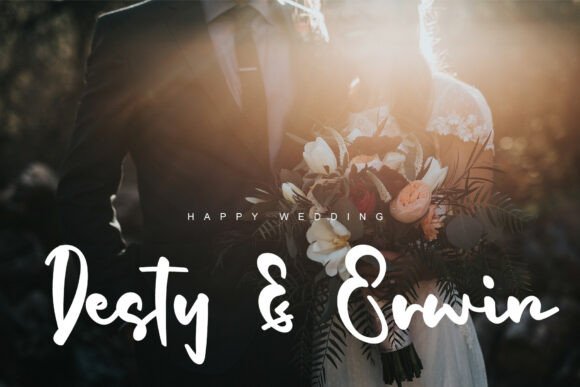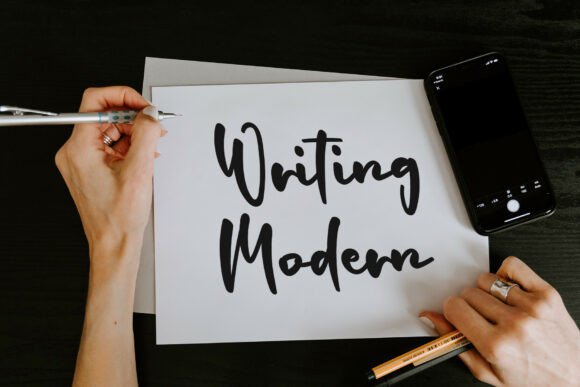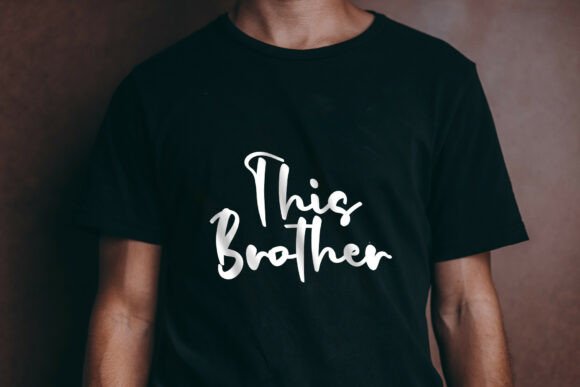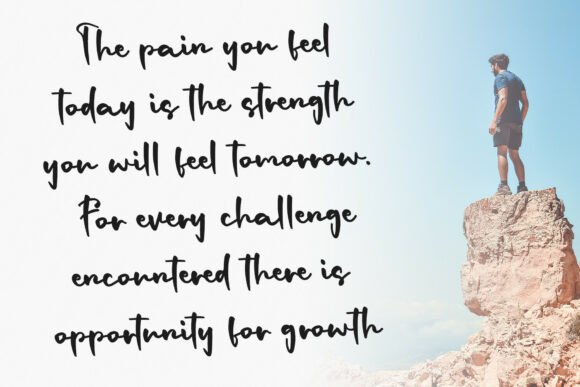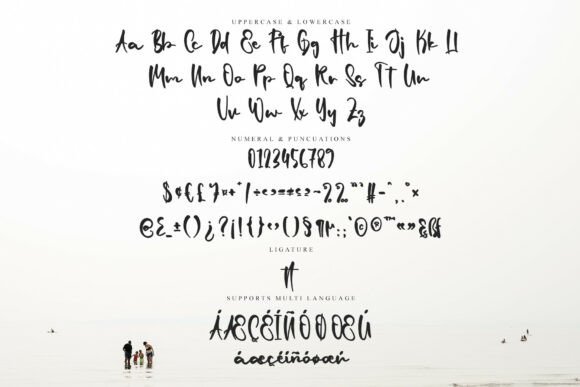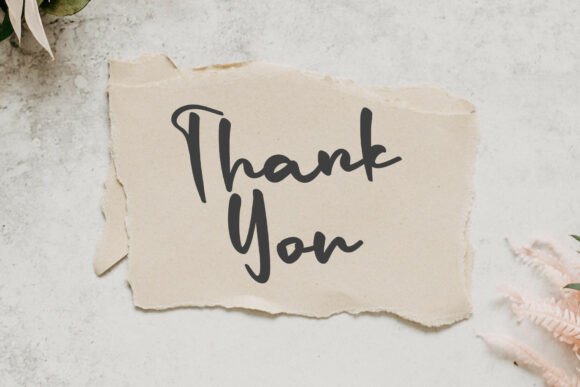
Introducing Cranky Handwritten Font: Elevate Your Designs with Elegance and Sophistication
In the world of typography, a well-crafted font can make all the difference in creating a lasting impression. For designers and crafters seeking to add a touch of class and sophistication to their work, Cranky Handwritten Font is an exceptional choice. This beautiful font seamlessly blends the fluidity of script handwriting with a bold, timeless vintage aesthetic, making it perfect for a wide range of design applications.
The Beauty of Cranky Handwritten Font
Cranky Handwritten Font is a masterful creation that exudes elegance and refinement. Its fluid strokes and graceful curves bring a sense of dynamism and movement to any design, while its bold and vintage touch adds a layer of sophistication and timelessness. This font is meticulously crafted to deliver a unique and distinctive look that sets it apart from more generic fonts.
Key Features of Cranky Handwritten Font
- Fluid Strokes: The font features smooth, flowing strokes that give it a natural, handwritten feel.
- Graceful Curves: Elegant curves and subtle nuances add depth and character to the font.
- Dynamic Flow: The font’s design ensures a natural flow, making it easy to read and visually appealing.
- Bold and Timeless Vintage Touch: A classic, vintage aesthetic that adds a touch of nostalgia and sophistication.
Cranky Handwritten Font is incredibly versatile and can be used in a variety of design contexts, including:
- Branding Design: Create a lasting impression with a unique and memorable brand identity.
- Signature Design: Add a touch of elegance and sophistication to your signature or personal brand.
- Vintage Aesthetics: Achieve a nostalgic, retro look that’s perfect for packaging, advertising, or editorial design.
- Stationery and Invitations: Elevate your stationery, invitations, or greeting cards with a touch of class and refinement.
Why Choose Cranky Handwritten Font?
With so many fonts available, why choose Cranky Handwritten Font? Here are just a few reasons:
- Elegance and Uniqueness: This font delivers a distinctive, sophisticated look that’s sure to set you apart.
- Effortless Design: Cranky Handwritten Font is easy to use and integrates seamlessly into your design workflow.
- Timeless Appeal: The font’s vintage touch ensures it will remain relevant and stylish for years to come.
Tips for Using Cranky Handwritten Font
To get the most out of Cranky Handwritten Font, consider the following tips:
- Pair with Neutral Backgrounds: Allow the font to take center stage by pairing it with neutral or subtle backgrounds.
- Experiment with Colors: Try different color schemes to find the perfect match for your design.
- Play with Sizes: Experiment with varying font sizes to create visual interest and hierarchy.
Cranky Handwritten Font is a stunning addition to any designer’s toolkit. Its unique blend of elegance, sophistication, and vintage charm makes it perfect for a wide range of design applications. Whether you’re looking to create a lasting impression, add a touch of class, or simply elevate your design game, Cranky Handwritten Font is an exceptional choice. So why wait? Discover the power of Cranky Handwritten Font and take your designs to the next level.